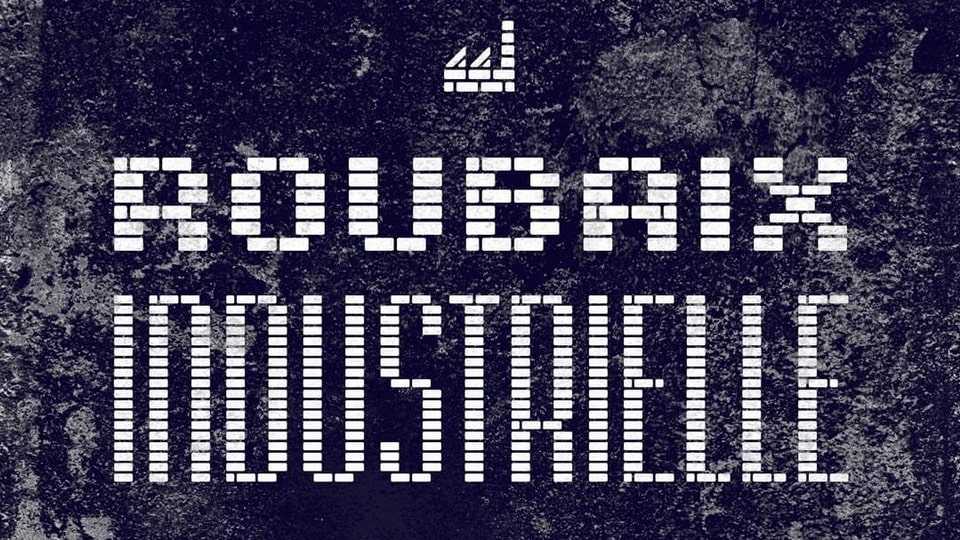
Download Roubaix Industrielle font, a typeface inspired by the history of Roubaix, a city in the north of France. Its design is based on brick-shaped modules, as a reference to the predominant building method in the city.
Designer: Ariel Martín Pérez